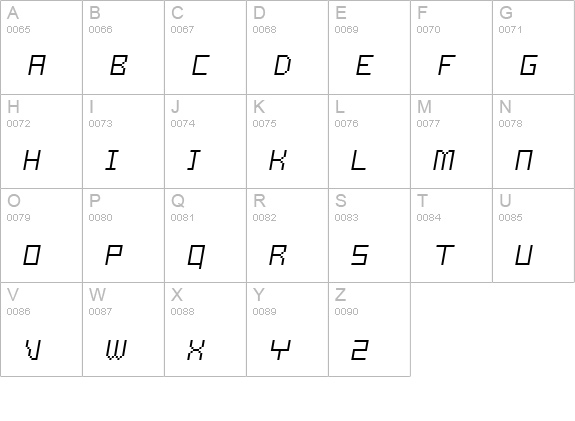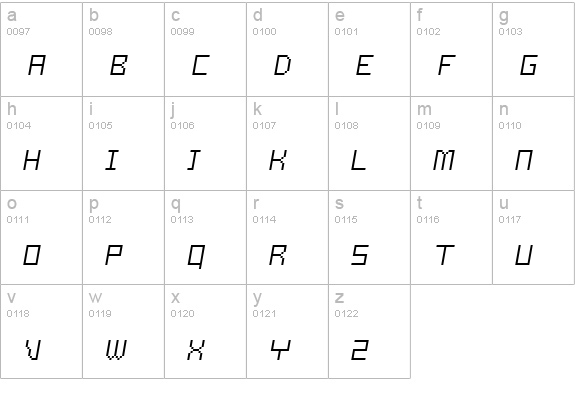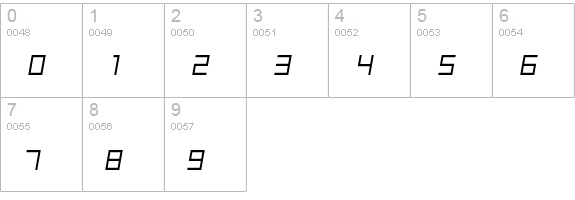
Samson Light Oblique Font Details
Samson Light Oblique is a refined, elegant, italic variant in the Samson typeface family \xE2\x80\x94 well suited to elegant body text, refined sub-headings, and luxury branding.
Samson Light Oblique font is a remarkable typeface that effortlessly combines elegance and versatility. Crafted with precision and care, this font showcases a unique blend of sophistication and modernity, making it a perfect choice for a wide range of design projects. With its sleek and slender letterforms, Samson Light Oblique font exudes a sense of refinement and grace. The slanted, oblique design adds a touch of dynamism, giving your text a subtle hint of movement and energy. Whether used for headings, body text, or even logos, this font captivates the viewer's attention with its distinctive visual appeal. What sets Samson Light Oblique font apart is not just its aesthetic appeal, but also its accessibility. Designed to cater to the needs of designers and typographers, this font is freely available for download at FontsMarket.com. This means that you can incorporate this stunning typeface into your projects without any cost or restrictions, allowing you to unleash your creativity without limitations. Versatility is another key feature of Samson Light Oblique font. Its clean and legible letterforms make it highly suitable for a wide range of design applications, including branding, advertising, packaging, invitations, and more. The font's subtle slant adds a touch of uniqueness, making it an ideal choice for projects that require a modern and sophisticated look. Whether you're working on a website, a brochure, or a poster, Samson Light Oblique font effortlessly elevates your design to new heights. Its delicate yet impactful appearance makes it an excellent choice for both print and digital media, ensuring that your message is conveyed with utmost clarity and style. In conclusion, Samson Light Oblique font is a versatile and captivating typeface that combines elegance with a contemporary twist. Its freely available download at FontsMarket.com allows you to incorporate this font into your projects without any hassle. With its sleek letterforms and dynamic slant, this font is sure to make a lasting impression, adding a touch of sophistication to any design.